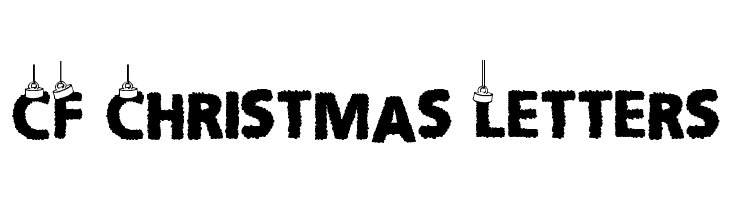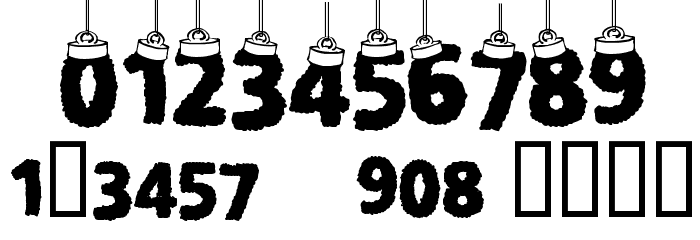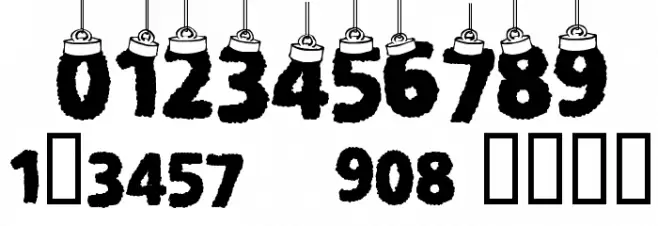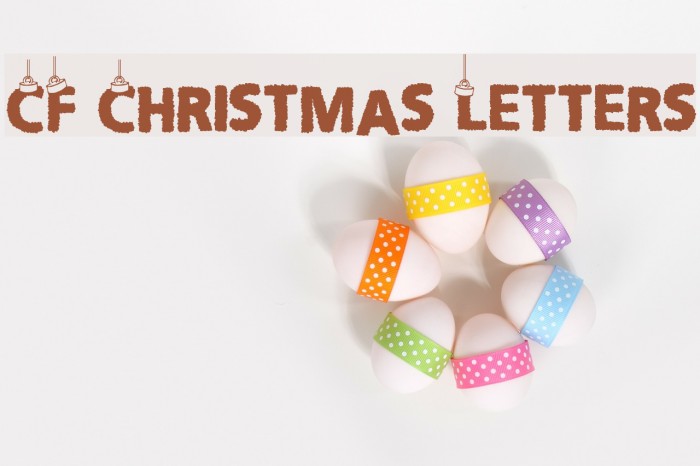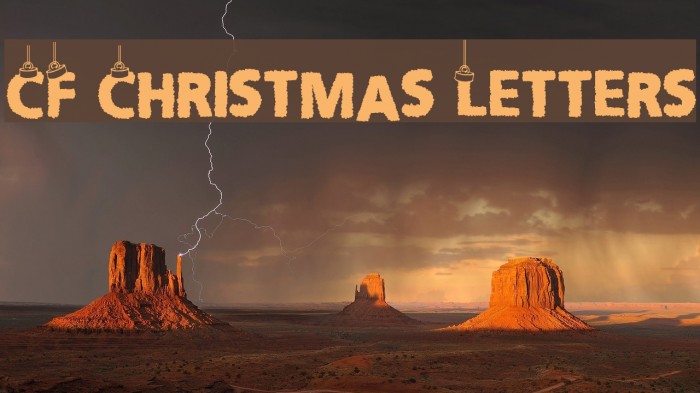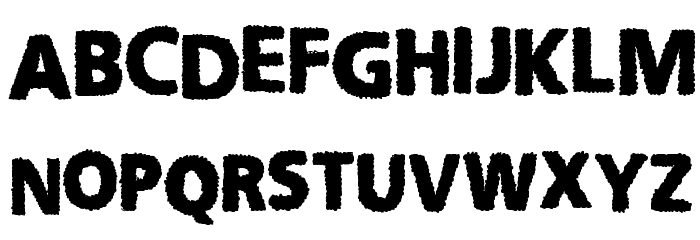
CF Christmas Letters Font
CF Christmas Letters Description
This playful and festive font features bold, fluffy letters adorned with Christmas ornaments hanging from the top. The characters are designed to evoke a sense of holiday cheer, with a textured appearance that resembles snow or fur. The uppercase and lowercase letters maintain a consistent style, with rounded edges and a slightly whimsical feel. Numbers and special characters are also included, each with the same decorative ornamentation. This font is perfect for adding a touch of holiday spirit to any project, making it ideal for Christmas-themed designs.
A festive, fluffy font with Christmas ornament decorations from Uncategorized fonts.
- Proposed Projects: Ideal for holiday greeting cards, festive banners, Christmas party invitations, and seasonal advertisements.
- Use Case: Headlines, Logos, Holiday-themed designs